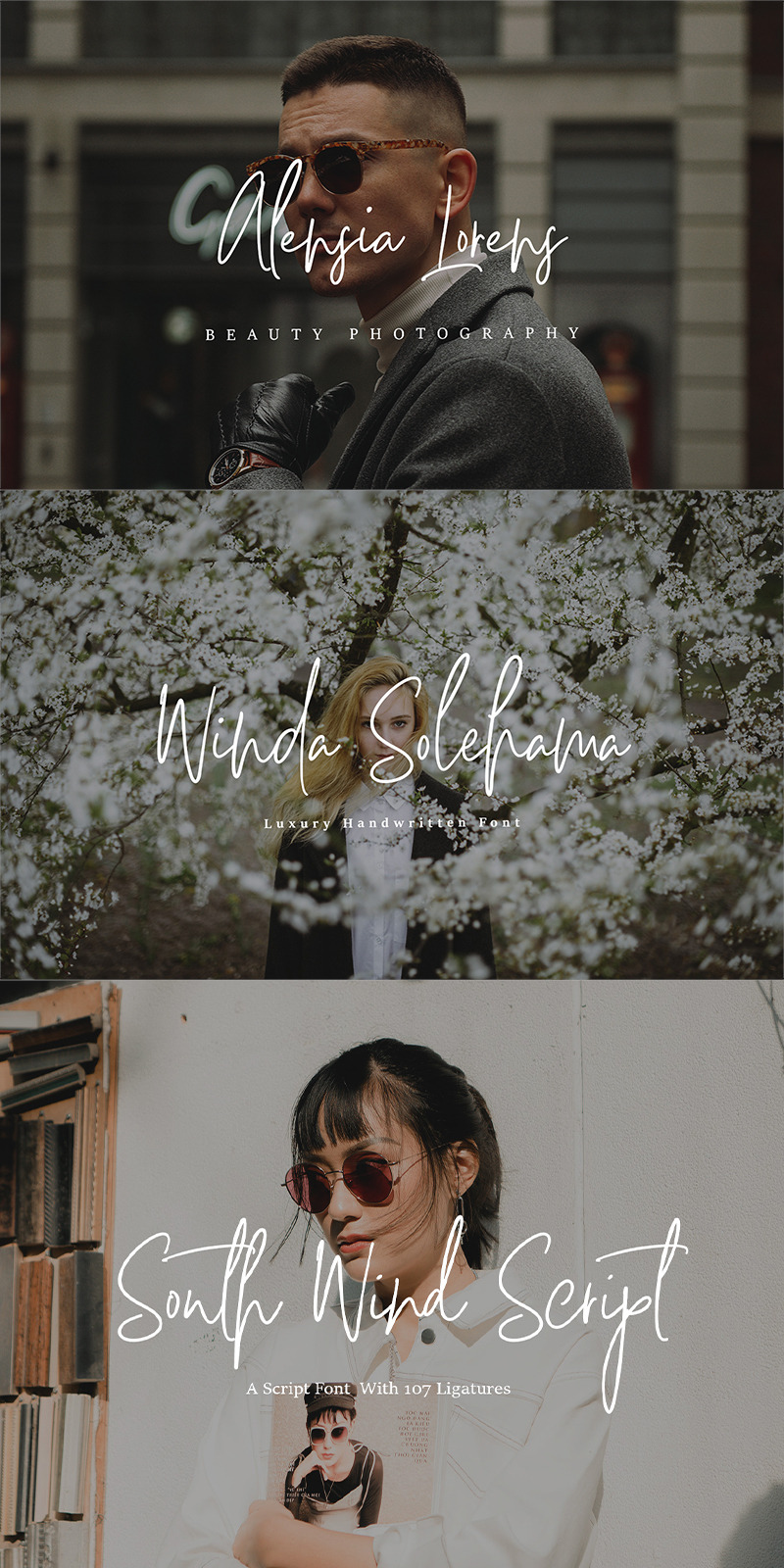
Rain South Wind Script Font
Rain South Wind Script Font is a handlettered font with 107 ligatures, lot of alternate characters and multilingual support. Is ideal for blog website, instagram, branding, invitations, business cards, weddings and many more.
Ligatures list:
ab ae al am an ar as at ax ay bb bl cc ch cl ct dd ee ef el en ep er es et ff ft gh ia ic ie il in it iu kt ll of ok ol om on oo op ot ov rr sh sl sm ss st th ts ttAf Ap As Be Dl Em Es Et Eu Ft If Is It Kt Ml Mr Ms Mt Ph Pl Pt Se Sh Sl St Usouth all alt arr ass can cus ell esl etl ett ill obl old oll oth out sim tedSouth Wind font also include multilingual support for Western and Central Europe.
- Rain South Wind Script Font is a set of 542 glyphs, Upper and Lowercase characters with 107 ligatures, numerals, lot of punctuation glyphs, 3 alternates for each lowercase character and 2 alternates for each uppercase character.
- South Wind Font Italic The original font, in italic style
- South Wind Font Alt1 The original font, with an alternate set of uppercase and lowercase letters changed for the standard characters.
- South Wind Font Alt2 The original font, with an alternate set of uppercase and lowercase letters changed for the standard characters.